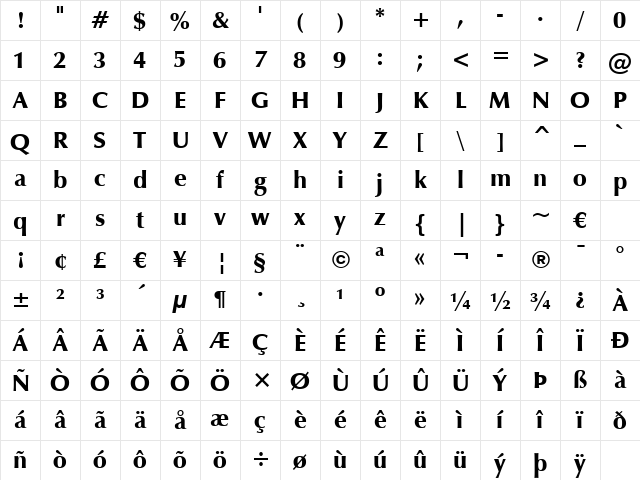
Complete ZapfHumnst Ult BT Ultra glyph index. Displaying only characters natively supported by ZapfHumnst Ult BT Ultra font.
ZapfHumnst Ult BT is a composed and adaptable typeface that performs quietly and consistently across a wide range of design contexts.